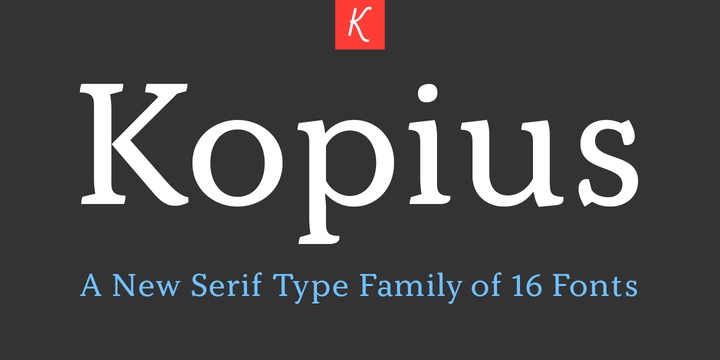
Kopius Font
Kopius Font is perfect for data visualization companies, analytical software branding, research institution materials, statistical report layouts, information design projects, scientific publication headers, business intelligence platforms, quantitative analysis presentations, academic research documentation, and comprehensive data-driven communications.
Kopius Font is exciting because it masterfully embodies the concept of abundance and comprehensive information display, creating a typeface that represents thorough analysis, complete data coverage, and the intellectual satisfaction of comprehensive understanding. This font brings analytical sophistication and information authority to any project, making it ideal for organizations that want to convey thoroughness, expertise, and the reliable completeness that defines quality research and data analysis. Its comprehensive character and analytical appeal create an atmosphere of intellectual confidence that resonates with audiences seeking complete information and thorough analysis.
Kopius Font family includes thin, light, regular, medium, bold, and black weights, each available in roman and italic styles with analytical symbols and data-focused ornaments, providing designers with comprehensive tools for creating information-rich typography and analytically sophisticated brand experiences.
This distinguished analytical typeface combines information design principles with contemporary functionality, making Kopius Font Free Download an outstanding choice for projects requiring both data clarity and intellectual authority. The font's comprehensively crafted letterforms feature analytical proportions and research-inspired styling that reflect the thoroughness and precision essential for quality data analysis and comprehensive information presentation.
Whether you're designing research institution branding, analytical software interfaces, or comprehensive data reporting materials, Kopius Font delivers unmatched analytical authenticity and information appeal. The font excels in both detailed data applications and large-scale analytical environments where comprehensive coverage and intellectual thoroughness create transformative understanding experiences.
Research professionals choose Kopius Font for its ability to instantly communicate analytical expertise and comprehensive coverage while maintaining excellent readability across complex information systems. The font's thorough character makes it particularly effective for research institutions, data analytics companies, and comprehensive information services.
Each character reflects the precision of thorough analysis, featuring comprehensive construction and analytical proportions that create typography as reliable and complete as comprehensive datasets, thorough research studies, and the most detailed analytical investigations.